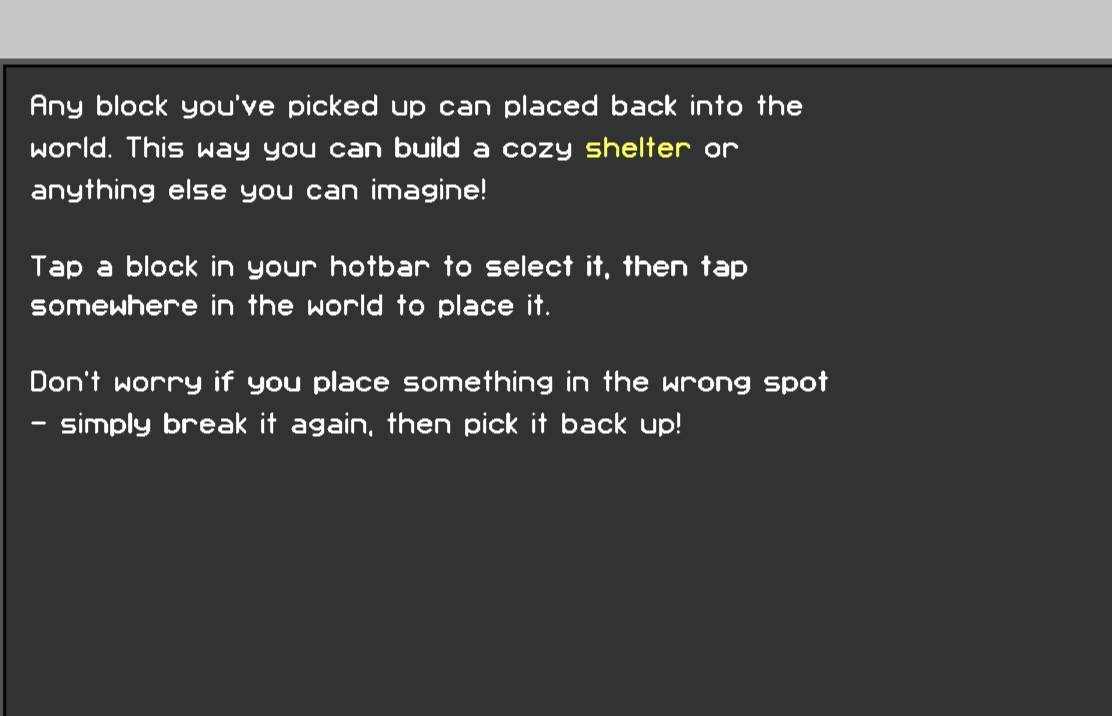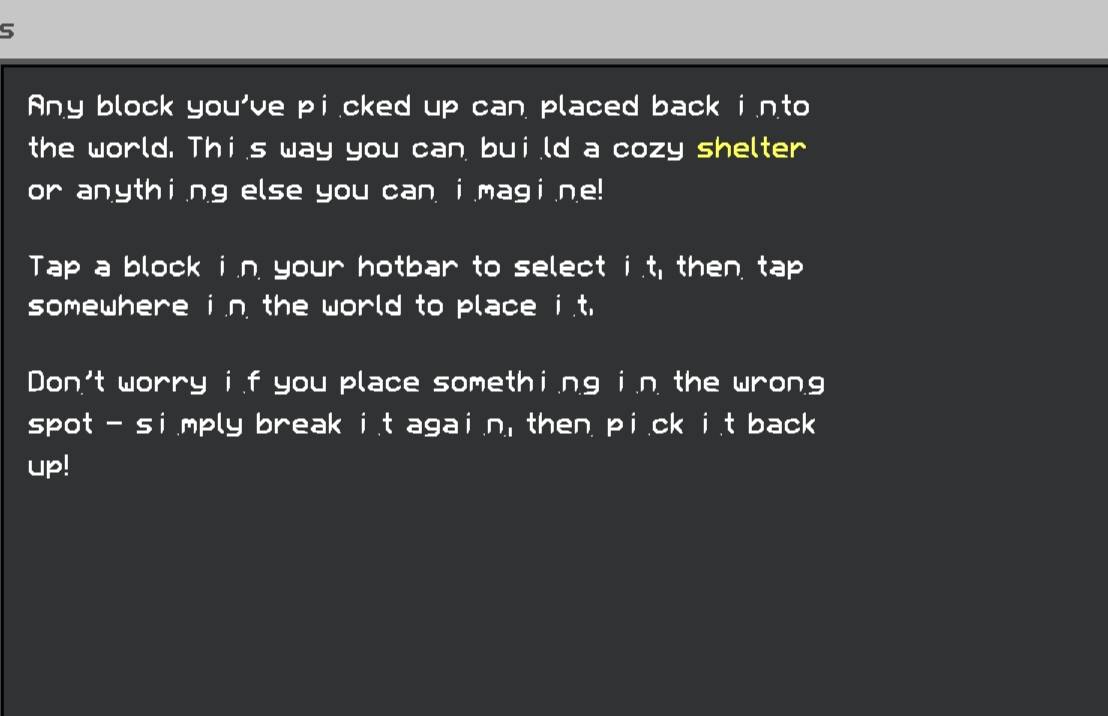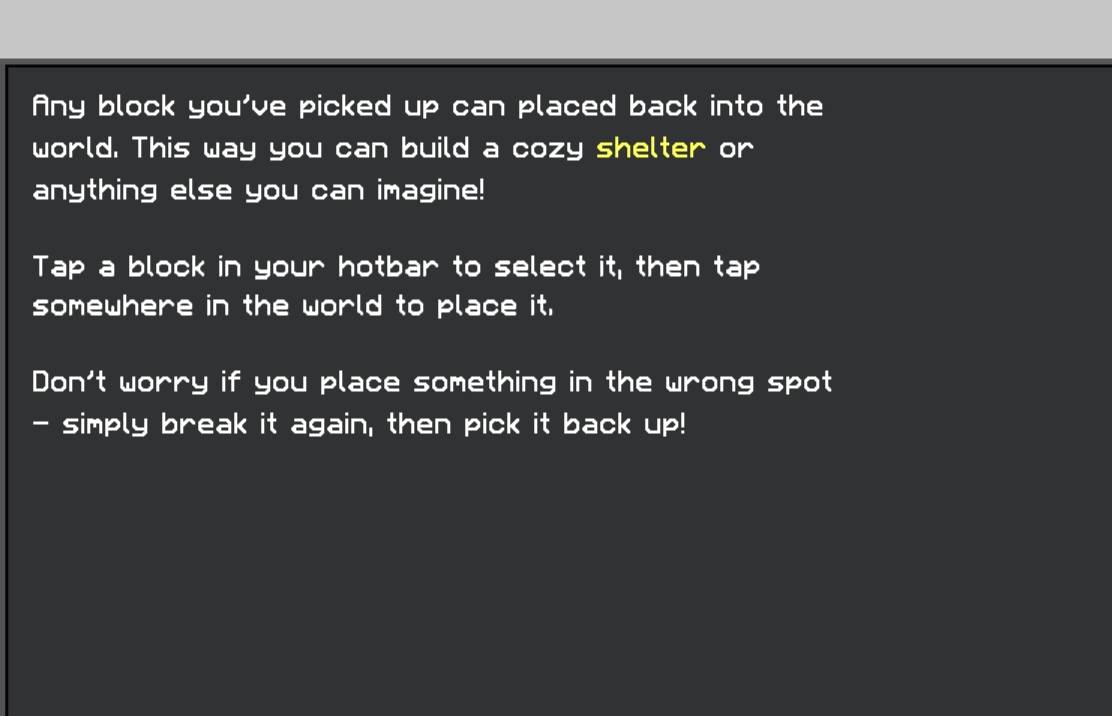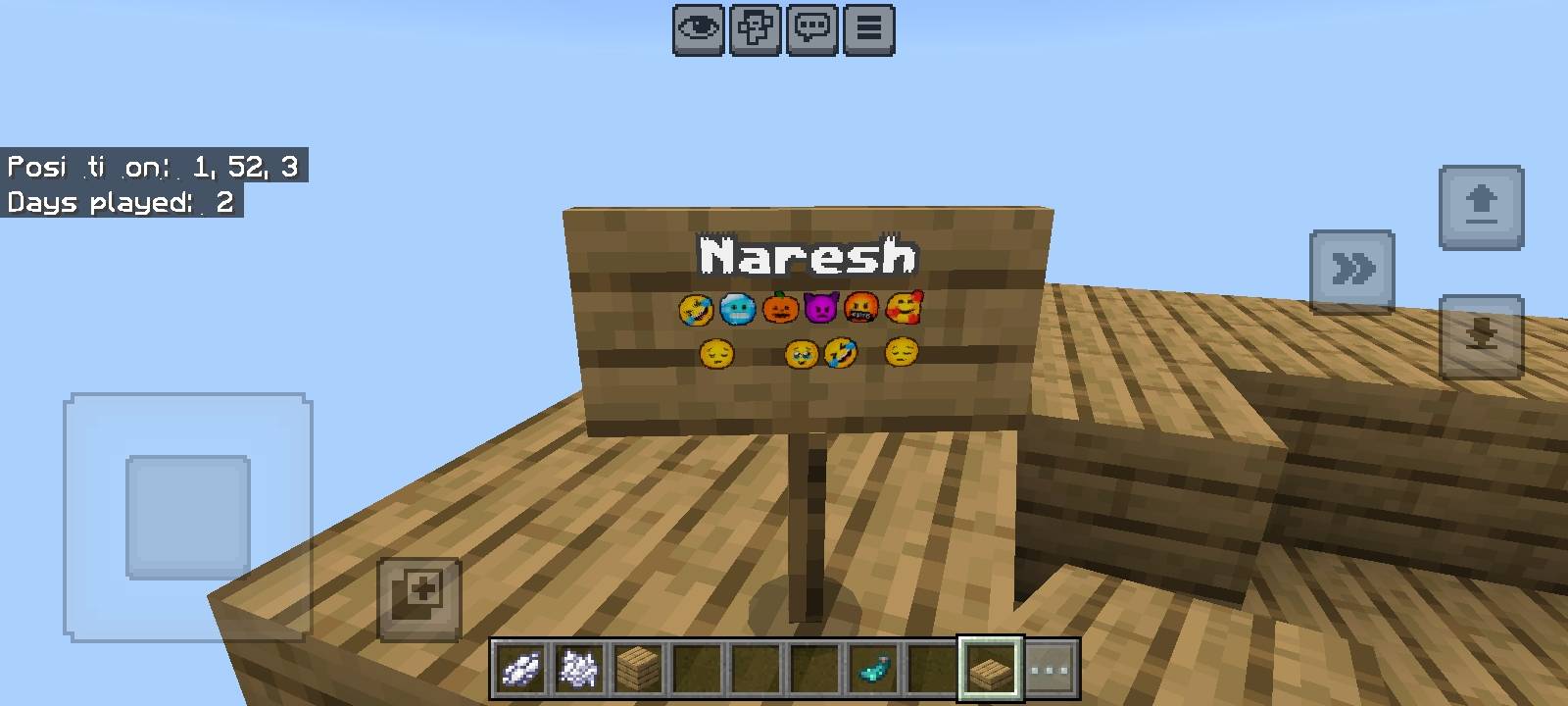
Sitiles Font For Minecraft
Minecraft PE font
This is A Minecraft bedrock edition stylish font
Beter font in Minecraft PE
In this pack 5 type deferent font
And this pack some emojis avelebal